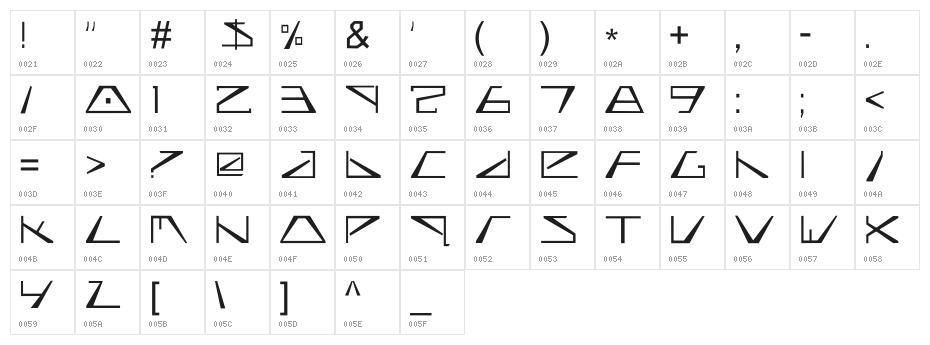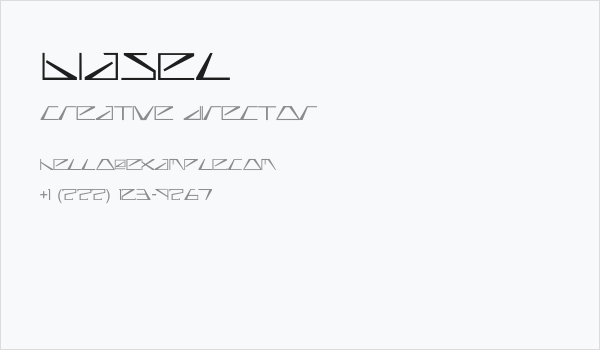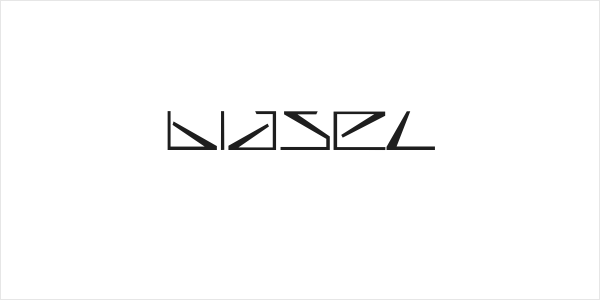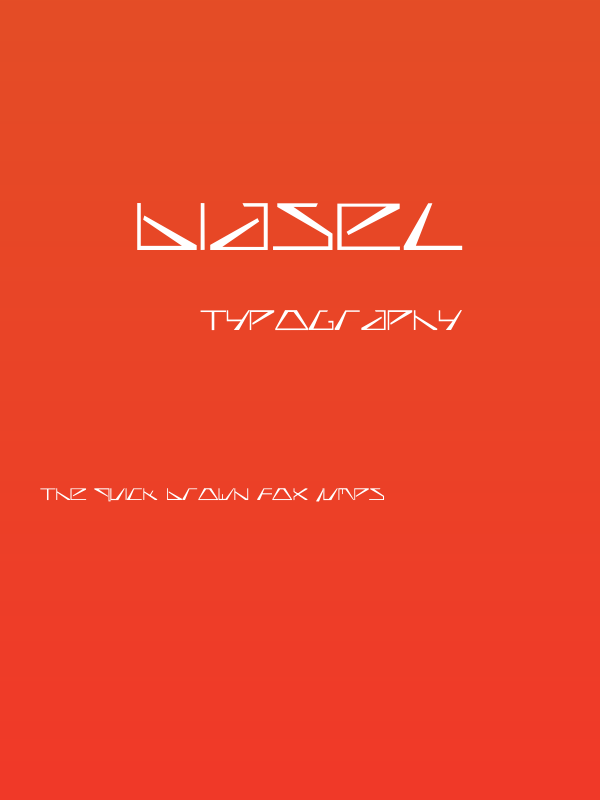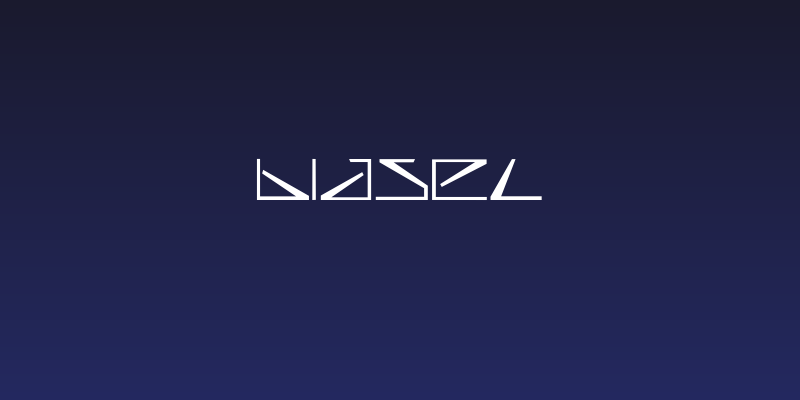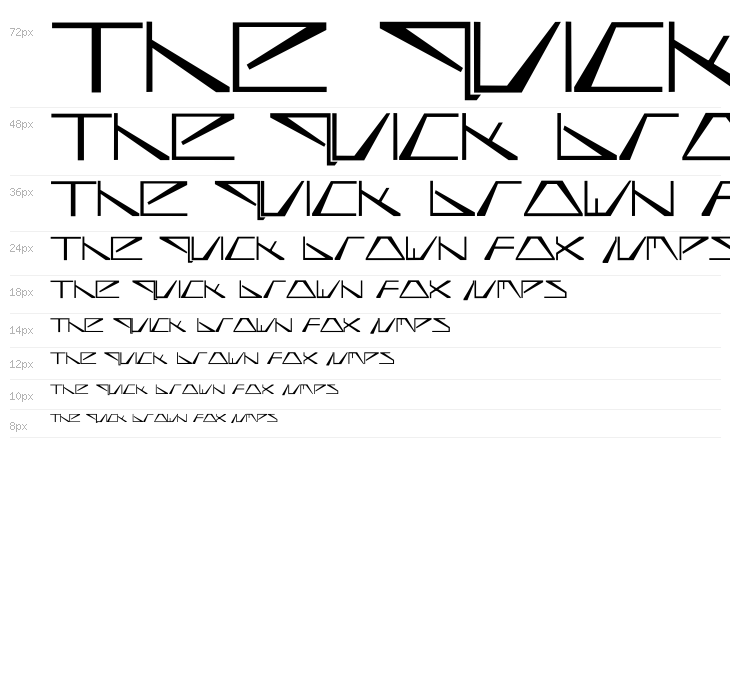
biasel Font
biasel Description
This font features a futuristic and geometric design, characterized by sharp angles and clean lines. The uppercase and lowercase letters share a consistent angular style, creating a cohesive and modern appearance. The numerals and special characters are designed to complement the letters, maintaining the same angular and minimalist aesthetic. The font's unique style makes it stand out, making it suitable for projects that require a modern and edgy look.
| Proposed Projects | Ideal for sci-fi themed designs, technology branding, video game titles, and modern posters. |